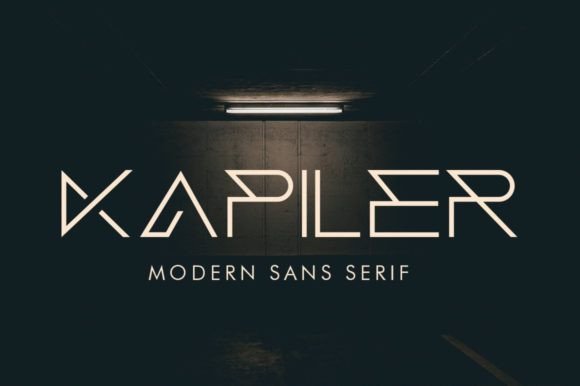
Step into the realm of typography and discover the Kapiler Font, the ultimate font for those who seek a futuristic and modern aesthetic. Its distinctive uppercase letters exude a captivating aura, instantly grabbing attention and leaving a lasting impression. Unleash your limitless creativity with this sans serif font, the perfect choice for crafting logotypes that resonate with the contemporary spirit of design.
Immerse yourself in a world of visual enchantment as you explore the myriad ways in which the Kapiler Font can transform your designs. Let your imagination run wild as you craft Instagram logos that radiate an aura of innovation and vibrancy. Capture the essence of your brand with a logo that embodies your vision and leaves an indelible mark on your audience.
The Kapiler Font is a versatile virtuoso, ready to elevate your creative endeavors and bring your ideas to life. Whether you're designing sleek and futuristic websites, captivating social media posts, or eye-catching marketing materials, this font is your steadfast companion. Its crisp lines and bold presence ensure that your message will always be conveyed with clarity and impact.
Embrace the boundless possibilities that await you with the Kapiler Font. Its versatility and adaptability make it a must-have in the arsenal of any creative professional. As a font meticulously crafted by the renowned Vultype, Kapiler Font embodies the epitome of typographic artistry.
Indulge in the limitless creative possibilities that await you with the Kapiler Font. Its captivating uppercase letters and sleek sans serif design will ignite your inspiration and propel your designs to new heights. As a font crafted with precision and passion, Kapiler Font is poised to become your go-to choice for crafting logos, branding materials, and any creative project that demands a touch of futurism and modernity.